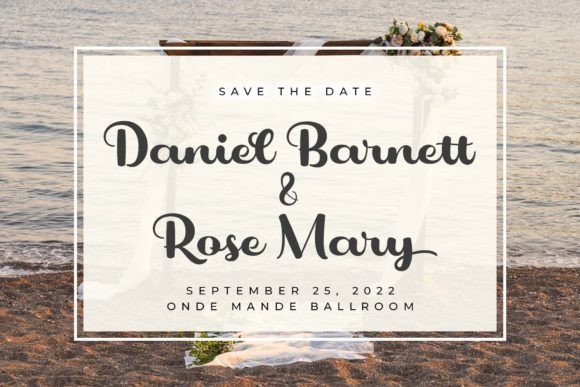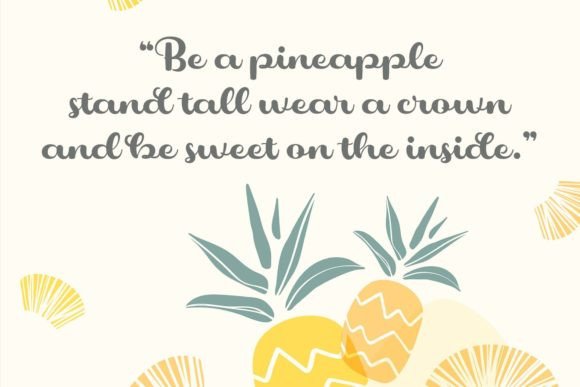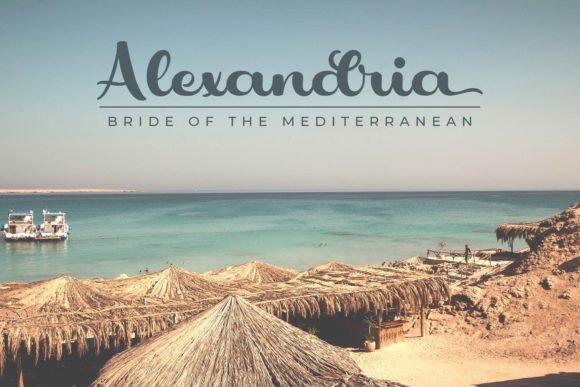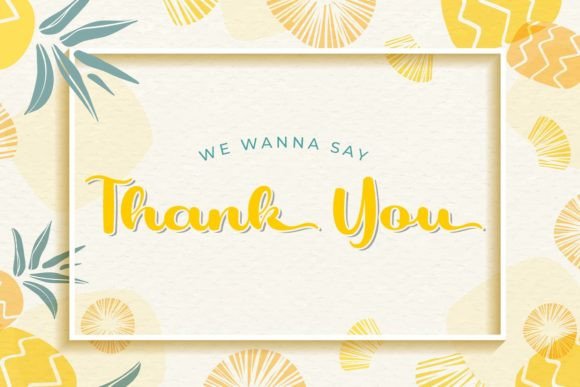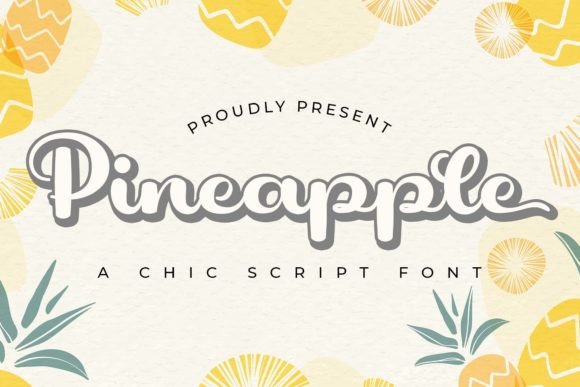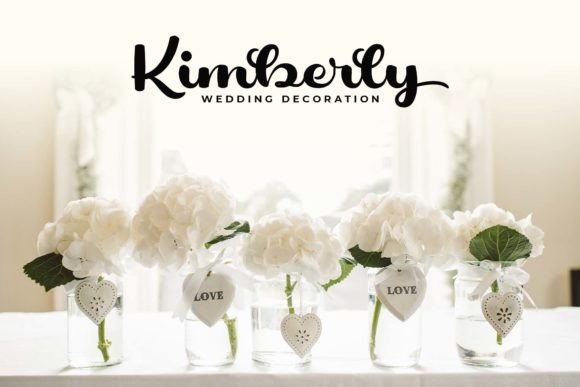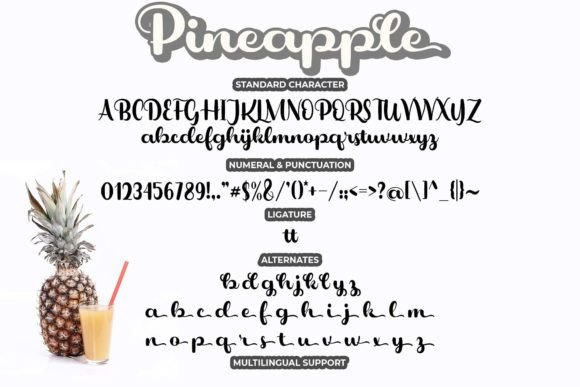
Pineapple Font
Meet “Pineapple,” a distinctive handwritten font characterized by its unique, rounded letterforms. This font was meticulously crafted to achieve the desired results, making it an exceptional choice for a wide range of creative applications. From eye-catching titles to elegant invitations and heartfelt letters, “Pineapple” offers versatility that knows no bounds.
“Pineapple” is more than just a font; it’s a design tool that effortlessly captures attention and makes your creative endeavors stand out. Its rounded letterforms impart a sense of playfulness and charm, allowing you to create designs that are both visually captivating and approachable.
One of the standout qualities of “Pineapple” is its adaptability. Whether you’re designing a whimsical title for a children’s book, crafting an inviting invitation for a special event, or penning a heartfelt letter, this font seamlessly integrates into a wide range of design contexts, enhancing each project with its unique character.
This font’s appeal extends effortlessly from traditional print media to the digital realm. From the pages of a colorful storybook to the interactive interface of a modern website, “Pineapple” adds a delightful touch to every setting. Its readability ensures that your message is conveyed clearly and effectively, while its inherent roundness adds an extra layer of visual appeal.
What sets “Pineapple” apart is its ability to evoke a sense of playfulness and approachability. It’s a font that invites your audience to engage with your designs on a personal level. With “Pineapple” as part of your creative toolkit, you can convey your message in a way that resonates with a wide range of audiences.
Furthermore, “Pineapple” offers a range of customization options, allowing you to tailor your text to perfectly match your creative vision. This flexibility empowers you to create designs that are as unique as your artistic imagination.
In conclusion, “Pineapple” is not just a font; it’s a design asset that infuses your creative projects with charm, playfulness, and a touch of uniqueness. Embrace its rounded handwritten style and let it inspire you to craft captivating and approachable designs that leave a lasting impression. With “Pineapple” by your side, your creative possibilities are boundless, enabling you to create works of art that are as delightful as they are versatile and engaging.